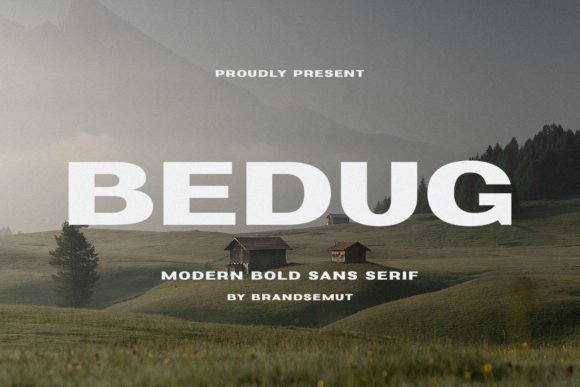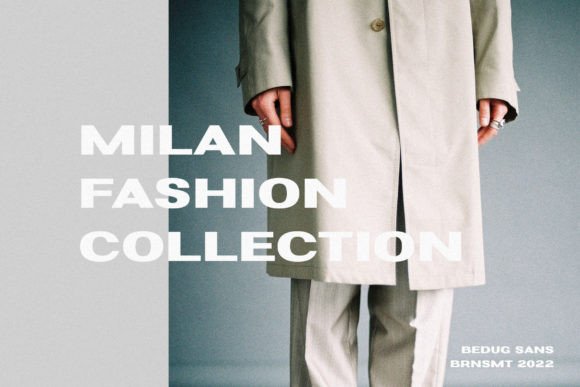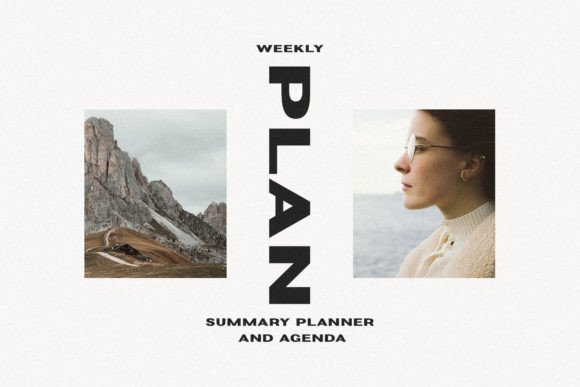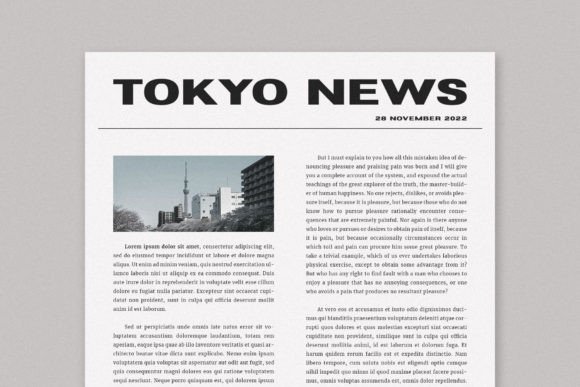
Bedug Font: Modern Sans Serif for Chic Logo Design & Branding
About the Bedug Font
Elevate your designs with Bedug Font, a font that combines sophistication with readability. Bedug is a modern and classy sans serif typeface, best used as a display for headings, logos, branding, magazines, product packaging, and invitations. Bedug comes with clean lines and smooth curves, giving any project an extra touch of class.